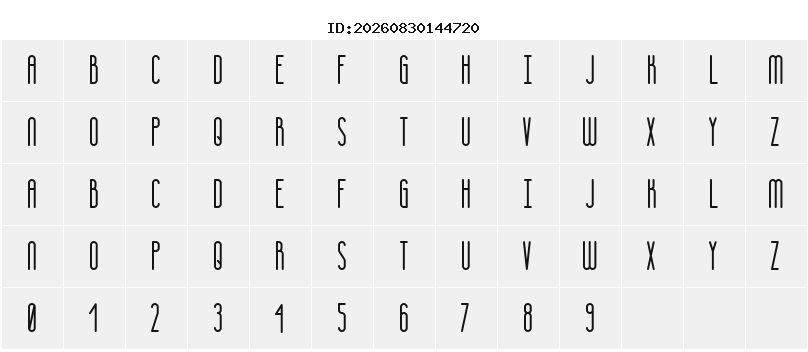
The Late Gatsby Preview
• Font Name: The Late Gatsby
About The Late Gatsby.ttf
The Late Gatsby.ttf is a modern, elegant sans-serif font designed for ultimate readability and visual harmony. Perfect for branding, headlines, web design, and print materials.